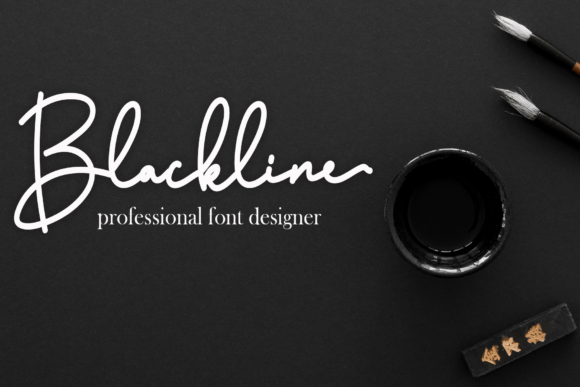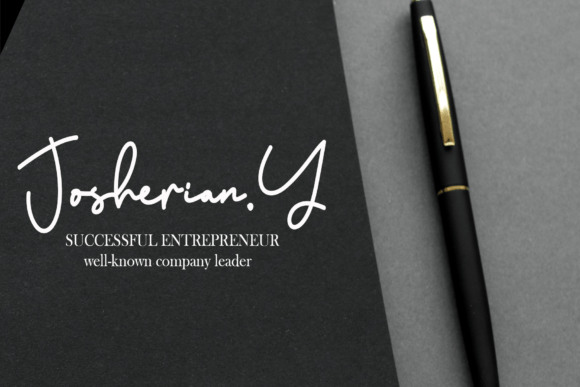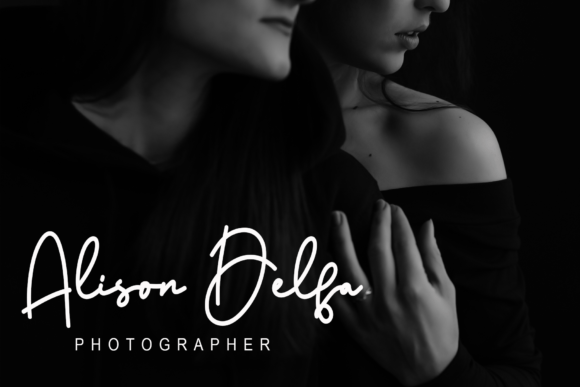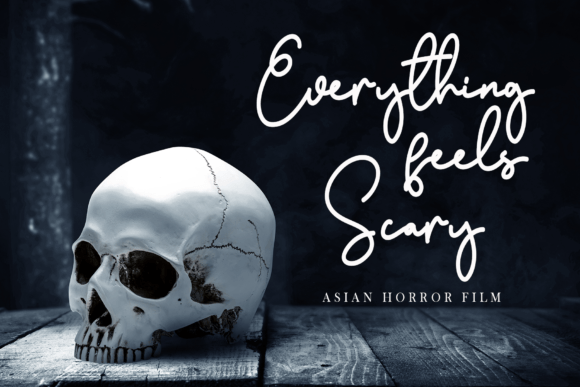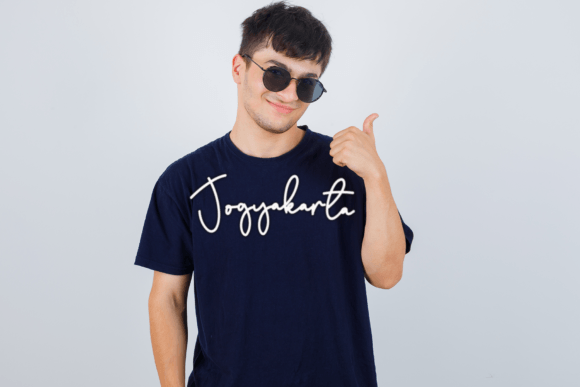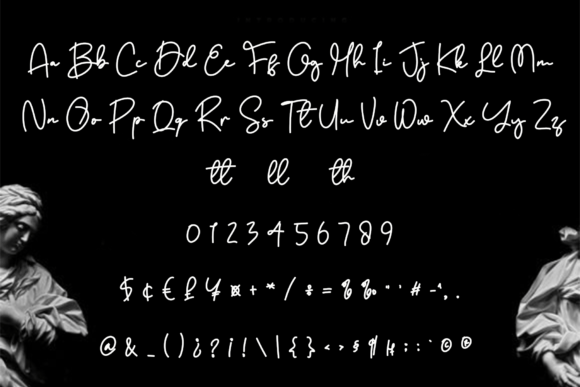
Introduction to Retroline Font Font
Fonts play a crucial role in design, and the Retroline Font font is a typeface that brings both character and versatility to any project. Whether you’re working on a branding project, a website, or a print design, the Retroline Font font offers a unique style that can elevate your work.
Retroline is a stylish and elegant signature script font.
It is perfect for product packaging, branding project, magazines, social media, weddings, and more .
Key Features of Retroline Font Font
Why Choose Retroline Font Font?
The Retroline Font font is more than just a typeface – it’s a design tool that helps you communicate your message with style and clarity. Its unique character set and versatile design make it suitable for a wide range of applications, from elegant invitations to bold headlines.
With its carefully crafted letterforms and balanced proportions, the Retroline Font font ensures readability and visual appeal across all mediums.
What makes Retroline Font font special?
The Retroline Font font stands out with its unique design, exceptional readability, and versatility across various design applications.